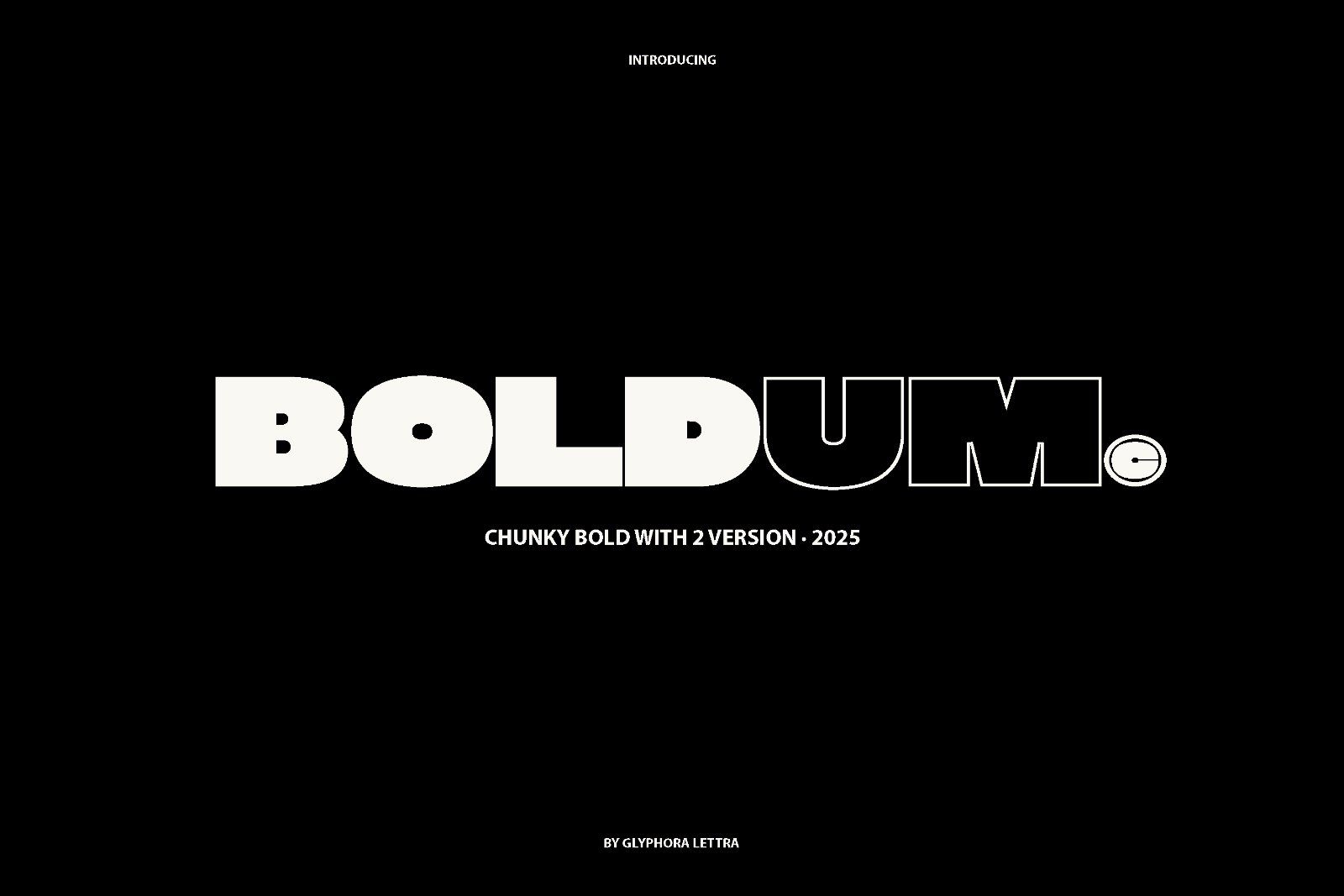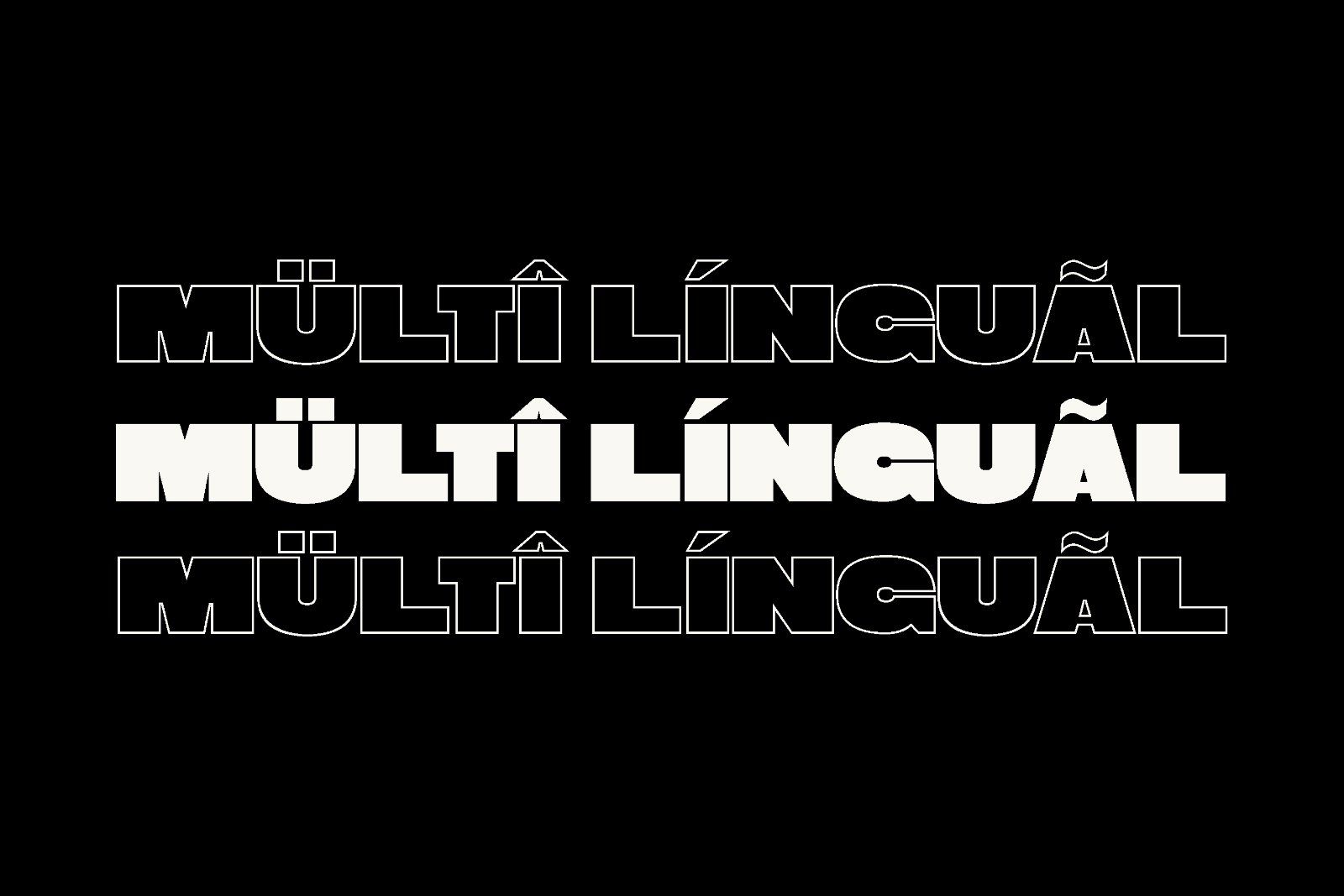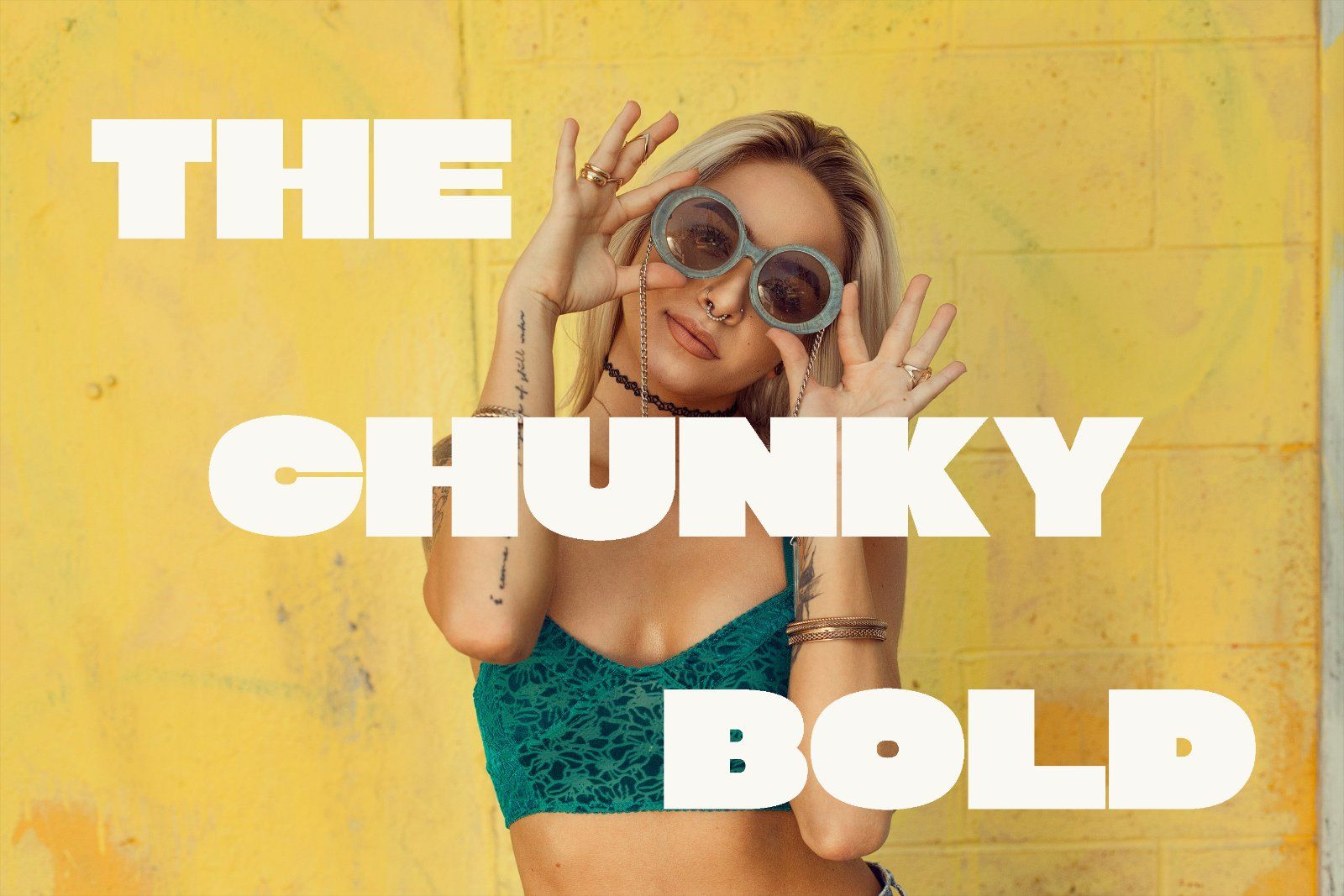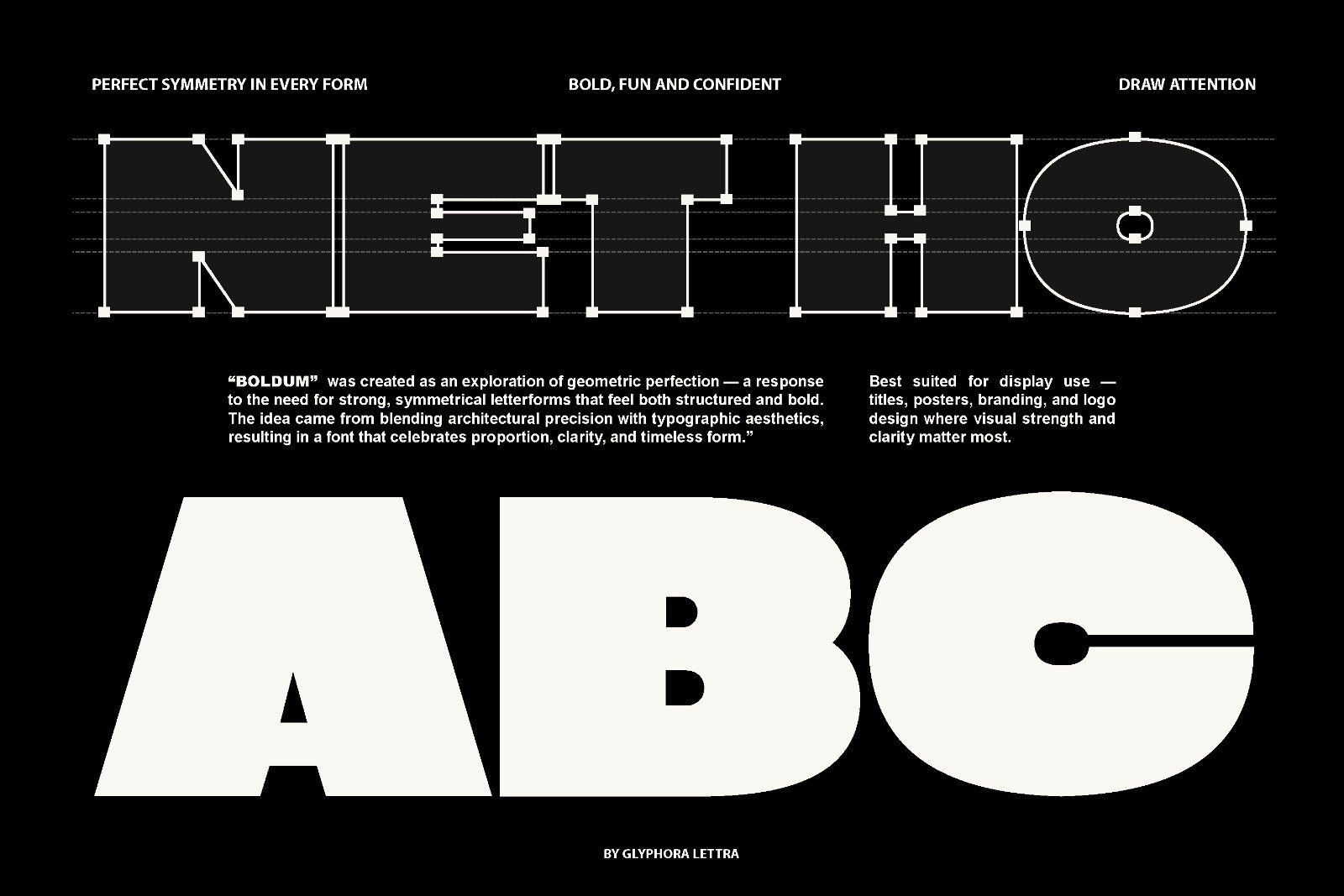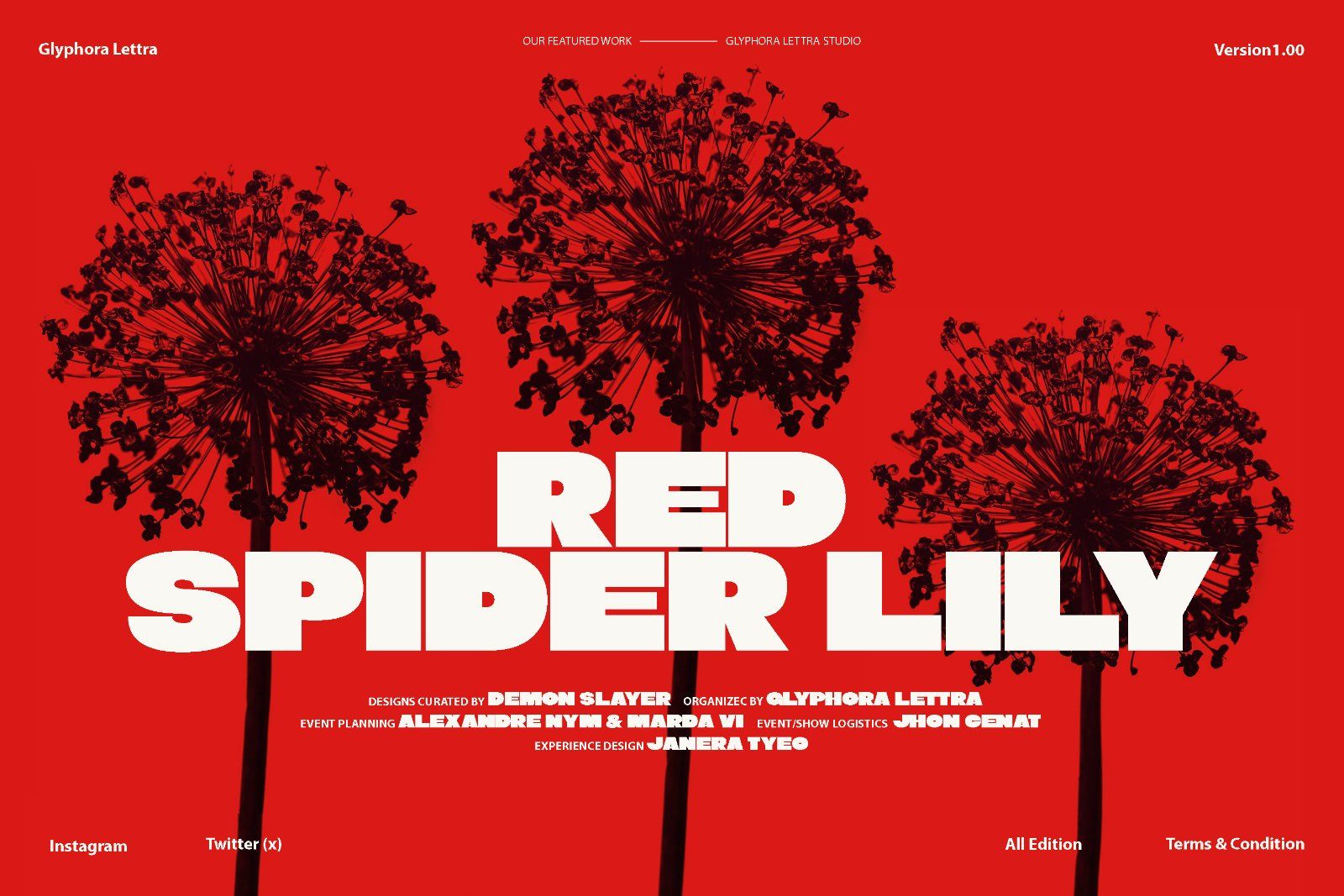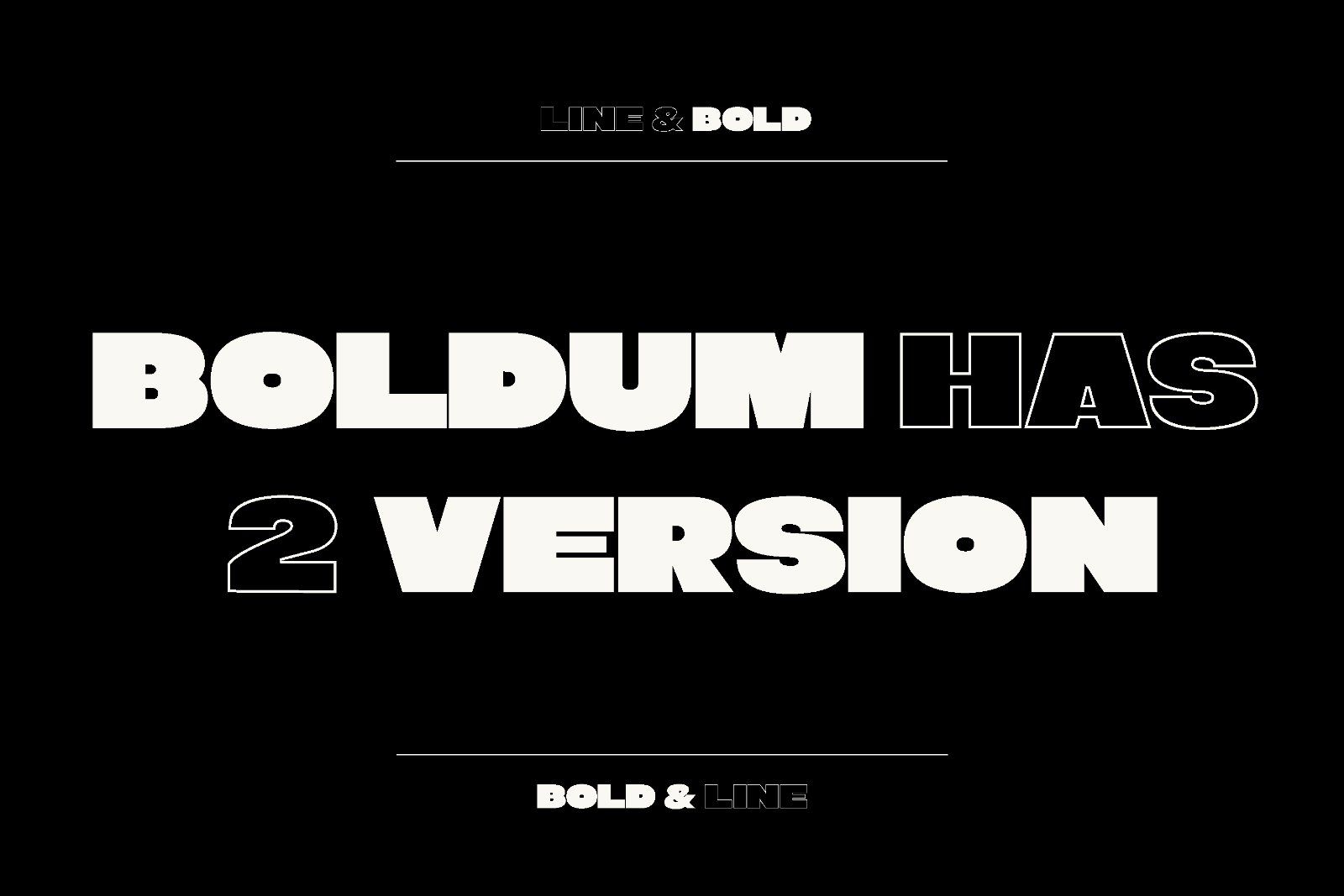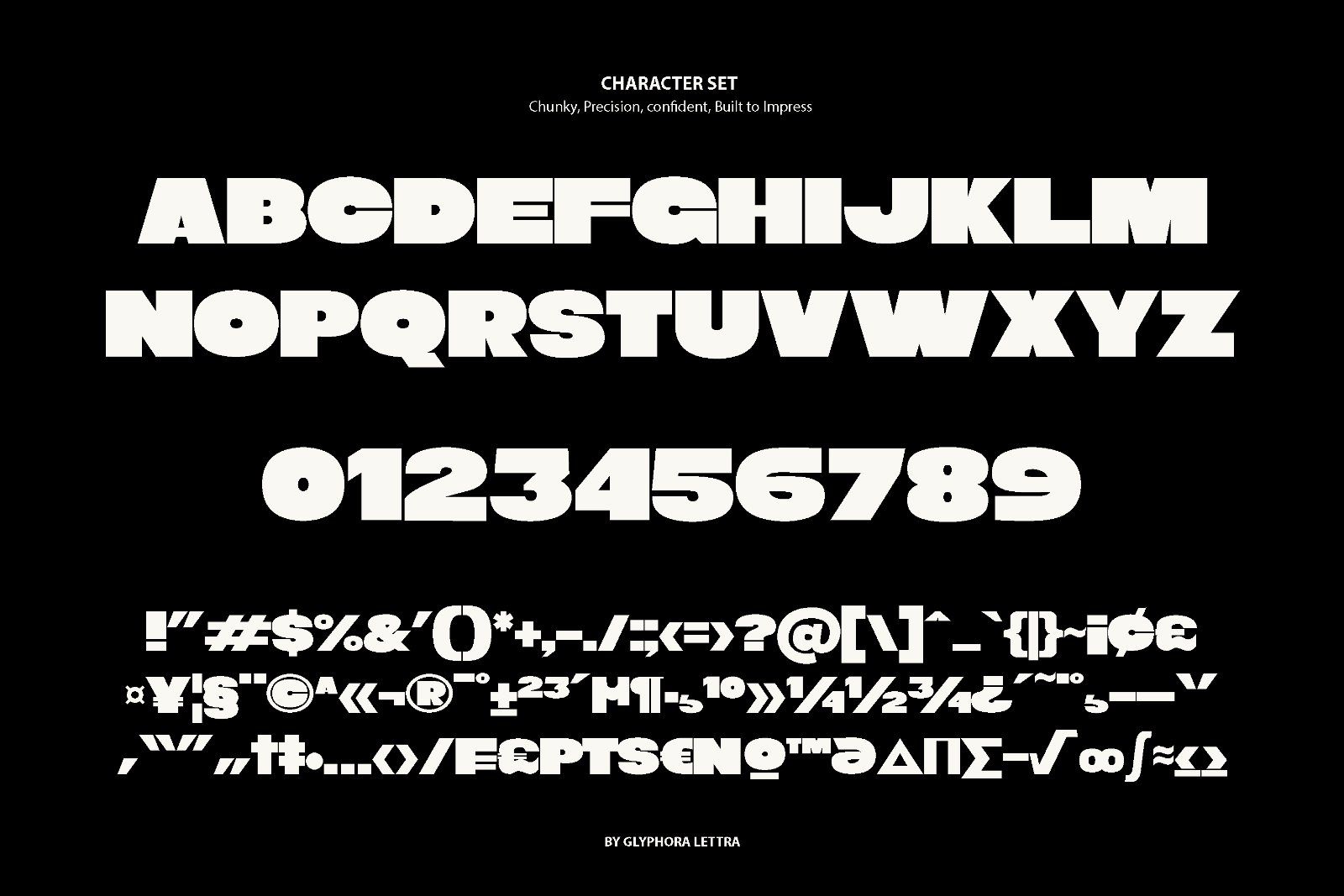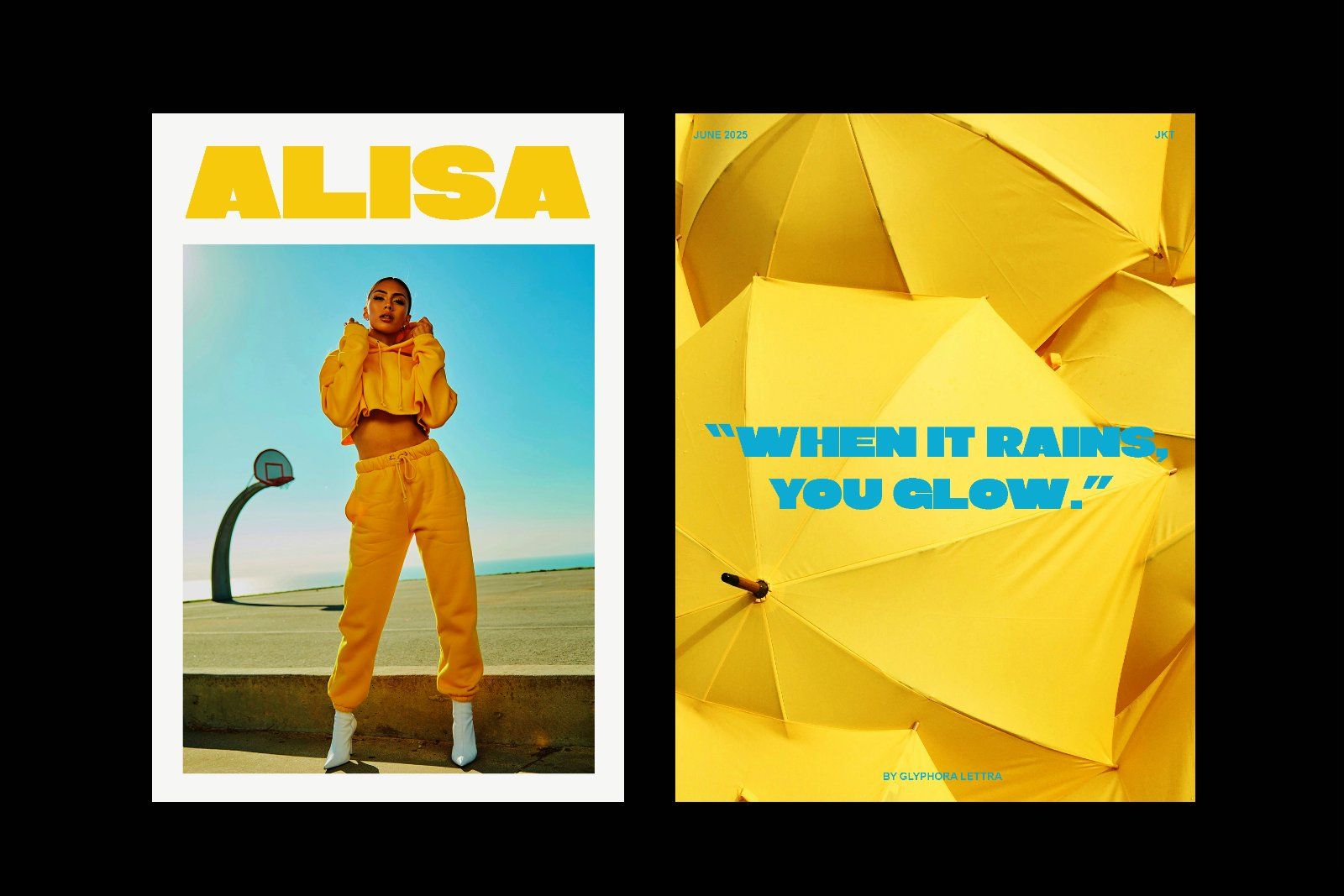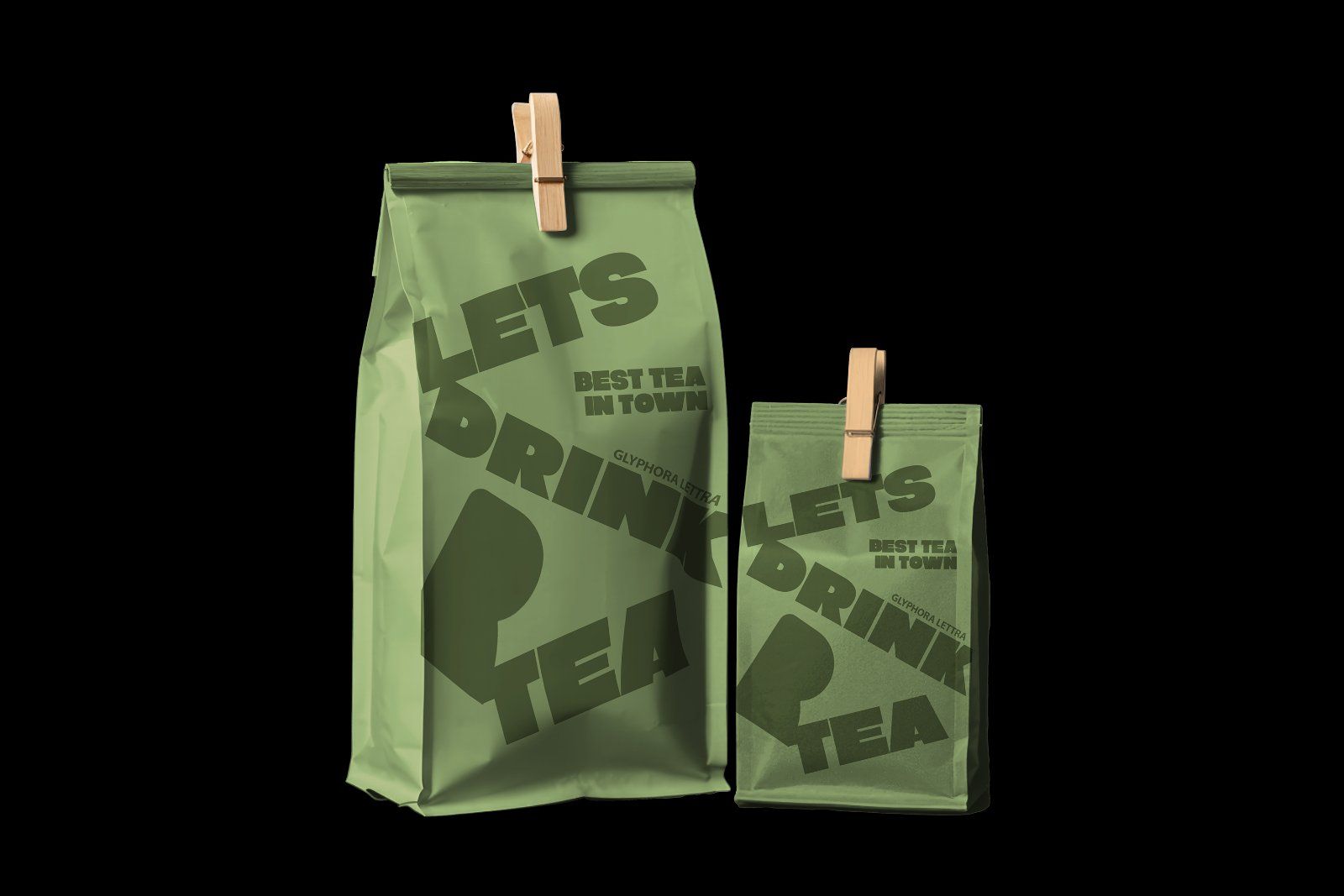
Boldum is a chunky bold typeface designed to feel playful yet powerful. Each letter carries a friendly warmth while keeping a confident geometric structure — making it both expressive and reliable for modern branding.
• Uppercase Only
• Numbers & Punctuation
• Logo
• Branding
• Magazine
• Titles
• Web Design & Social Media